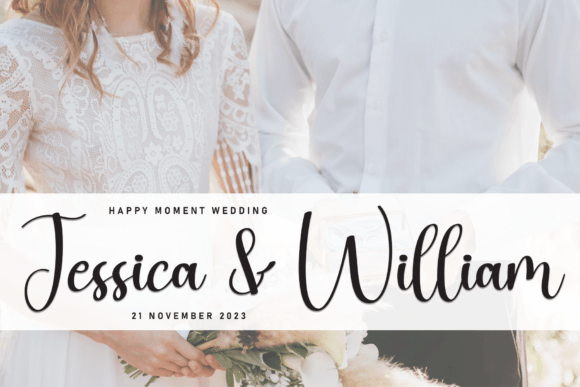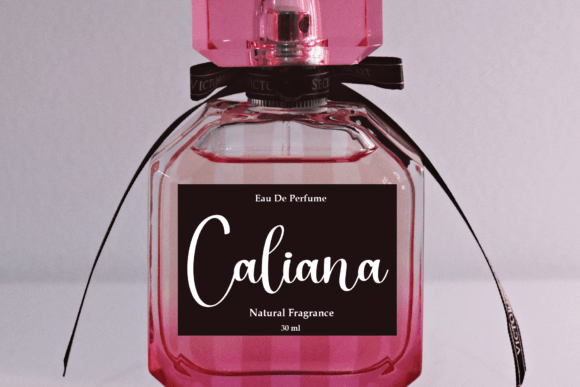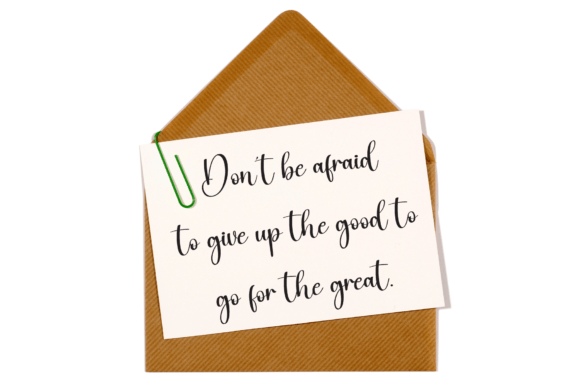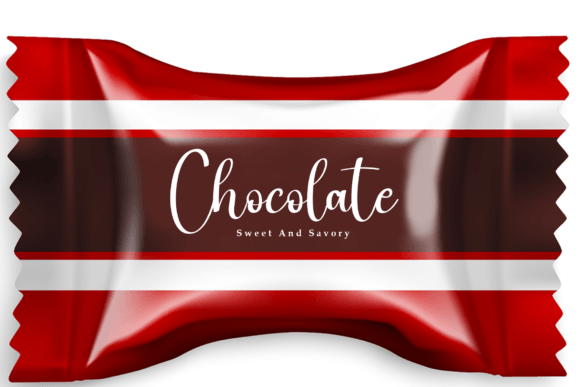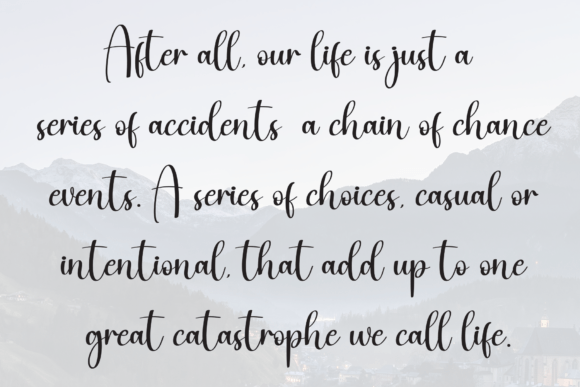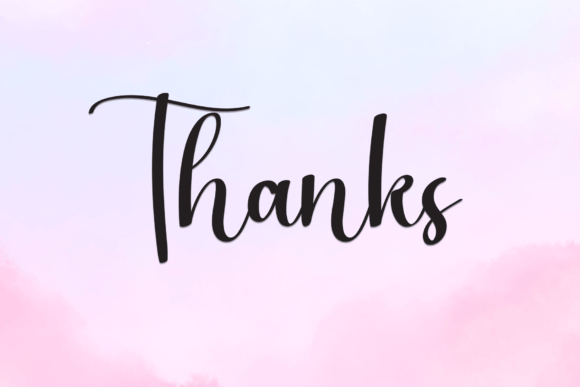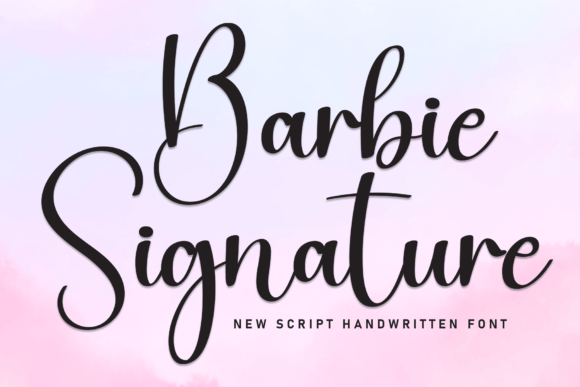
The Perfect Font for a Sweet and Special Touch
Do you remember the moment when you knew exactly how you wanted your wedding invitation to look? Maybe it was a sparkly design, a cute illustration, or a beautiful handwritten font that would set the tone for the rest of the wedding. For many of us, it’s those small details that make a big impact. And what’s more impactful than a sweet and friendly handwritten display font?
Enter the Barbie Signature Font, a charming and playful font that’s perfect for adding a touch of whimsy to your designs. Whether you’re writing wedding invitations, creating cards for a special occasion, or simply looking for a fun font to add some personality to your work, the Barbie Signature Font is an ideal choice. As a designer, you’ll love the versatility and charm of this font, which is sure to bring a smile to your clients’ faces.
Barbie Signature Font Key Features
- Unique Characteristics: The Barbie Signature Font features a distinctive, cursive script with a touch of whimsy, making it perfect for adding a touch of femininity and playfulness to designs.
Barbie Signature Font Review
I’ve had the chance to work with the Barbie Signature Font, and I must say it’s a unique addition to any design project. ✨ One of the things that stands out is its playfulness and femininity, making it perfect for projects targeting a younger audience or those with a whimsical tone.
The font’s characteristics, such as its rounded edges and flowing lines, are well-suited for titles, headings, and other large-scale text applications. It’s also versatile enough to be used for body text, although it may not be the best choice for paragraphs due to its relatively large x-height.
- Unique and feminine design aesthetic ✨
- Perfect for projects targeting a younger audience
- Well-suited for titles, headings, and large-scale text applications
- May not be suitable for paragraphs due to its large x-height ⚠️
- Limited legibility at small font sizes
Overall, I think the Barbie Signature Font is a great addition to any designer’s toolkit, but it’s essential to understand its limitations and use it in projects where its unique qualities will shine.
The Barbie Signature Font is commonly used in:
- Marketing materials for kids’ products and services.
- Designing for kids’ clothing and accessories.